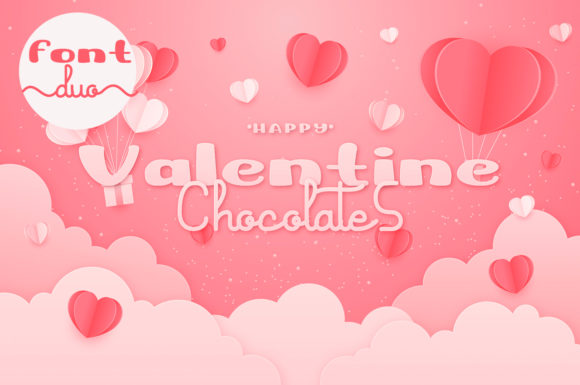
Prepare your senses for a typographic delight as we unveil Valentine Chocolates, an exquisite duo font that will captivate your creative spirit. This elegant and dainty font, featuring a harmonious blend of handwritten and sans serif styles, is a feast for the eyes. Immerse yourself in the sweet and delicate swashes that adorn each character, adding a touch of charm and sophistication to your designs.
With Valentine Chocolates, your words will dance off the page, captivating your audience with their timeless beauty. From enchanting letterheads to eye-catching titles, this font will elevate your creations to new heights. Its versatility knows no bounds, effortlessly adapting to a myriad of design endeavors, including stationery, logos, and social media graphics.
Unlock the full potential of Valentine Chocolates with its PUA encoding, granting you effortless access to an array of glyphs and swashes. Unleash your creativity and explore the endless possibilities as you craft designs that leave a lasting impression.
Step into the world of Valentine Chocolates and let your imagination soar. This font is not merely a collection of letters; it's an invitation to embark on a journey of artistic expression. Its graceful lines and enchanting swashes will transform your designs into masterpieces that resonate with your audience.
Don't settle for ordinary fonts; embrace the allure of Valentine Chocolates. Its unique charm and versatility will ignite your passion for design and leave your audience spellbound. Experience the magic of Valentine Chocolates today and elevate your creative projects to new heights of elegance and sophistication.